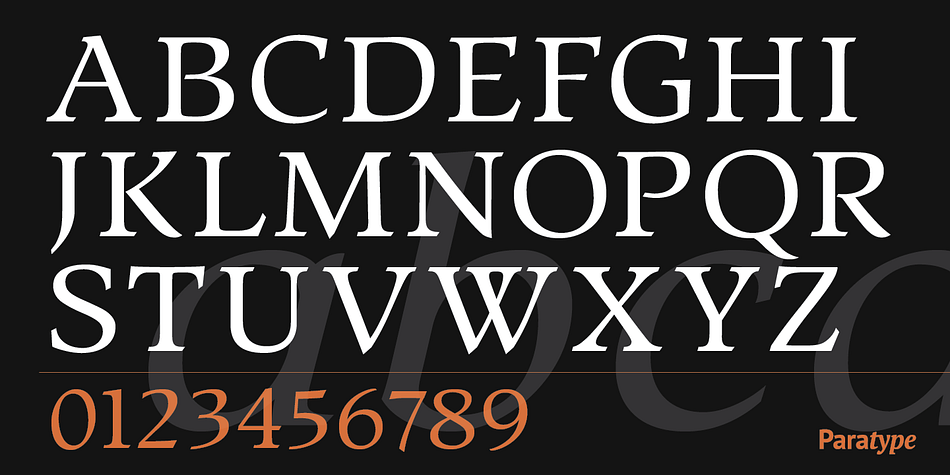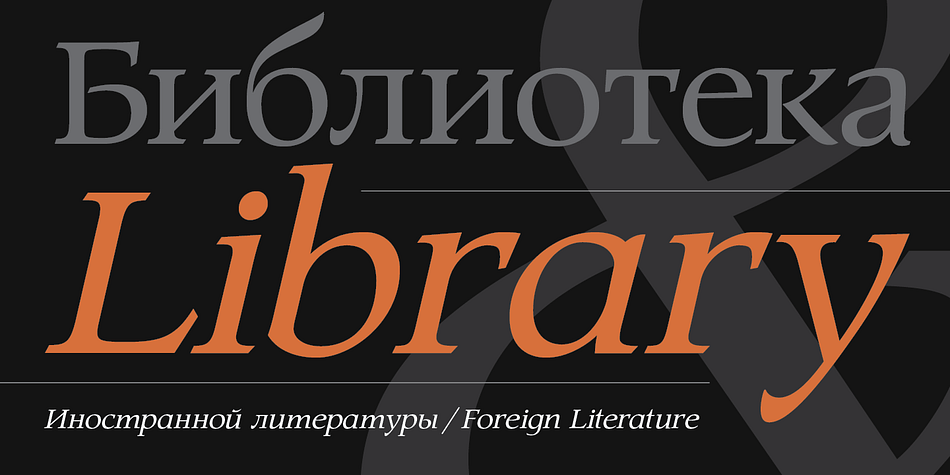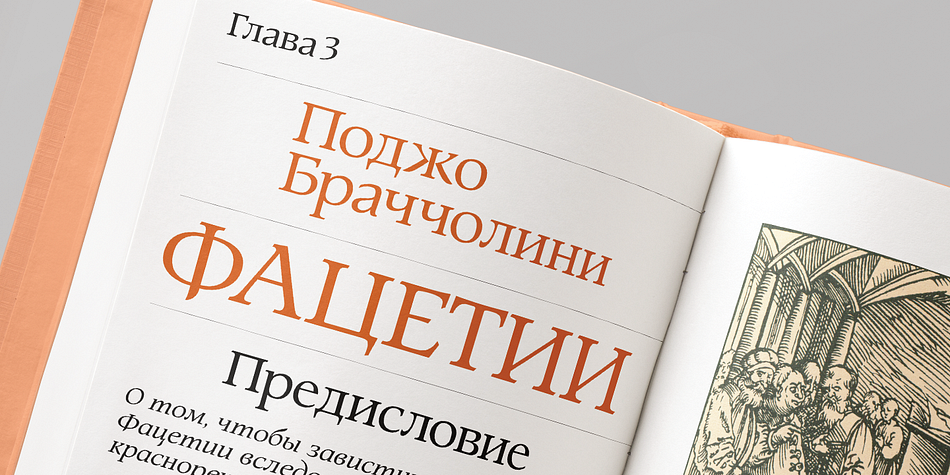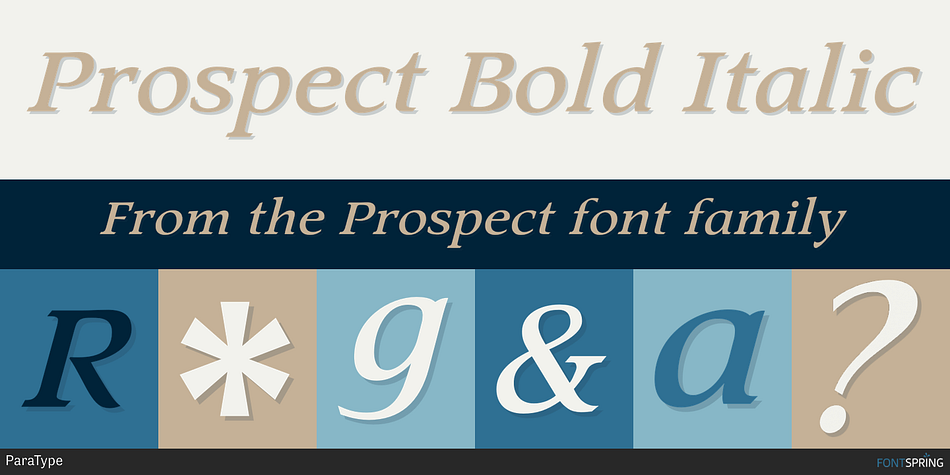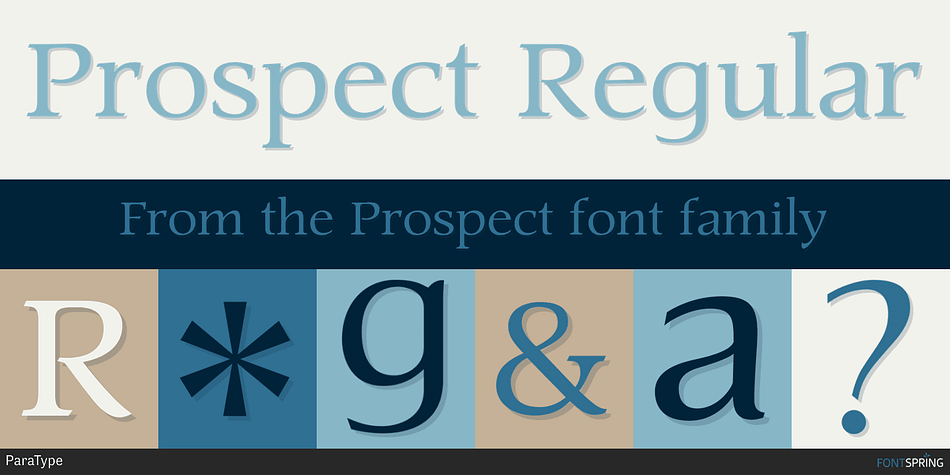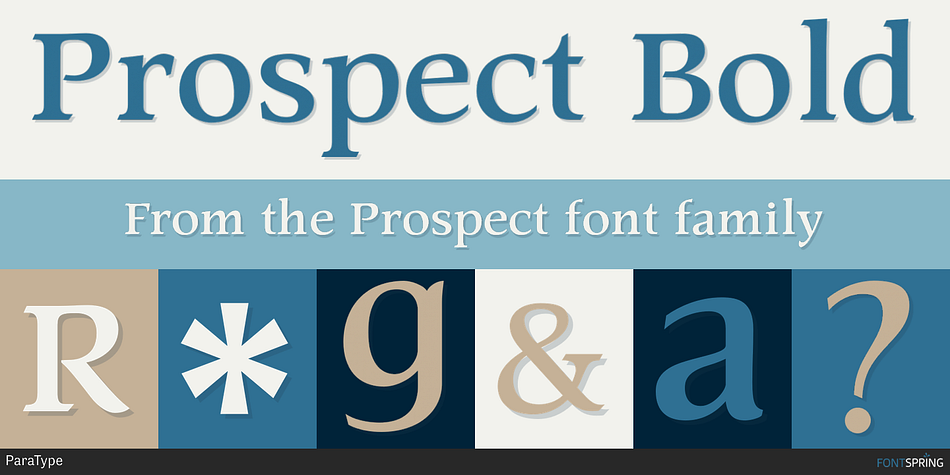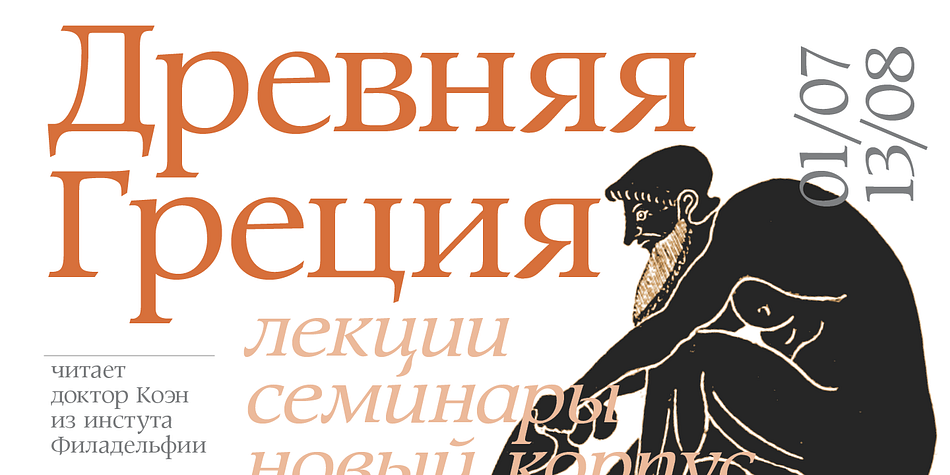
Designed by Natalia Vasilyeva, Prospect is a serif font family. This typeface has four styles and was published by ParaType.
PT Prospect™. An original serif family designed in 1997-2001 by Natalia Vasilyeva and licensed by ParaType. A face of wide proportions and free lettershapes. The serifs have slanted edges. Based partially on the hand lettering of the author. For use in titling and display composition.